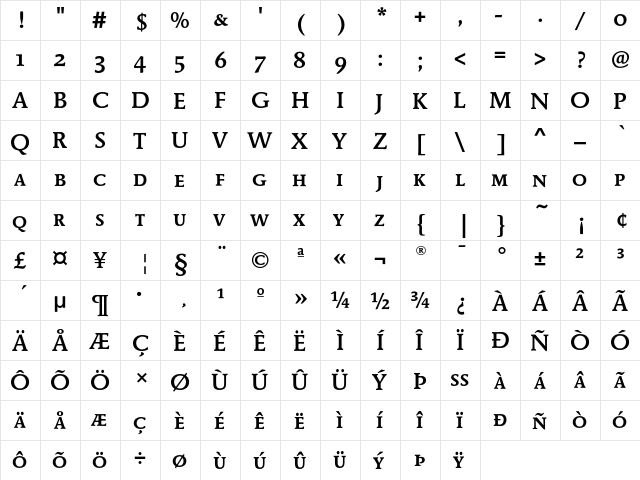
MendozaEF MediumSC Font Preview
MendozaEF MediumSC
Design Context for MendozaEF Typeface
MendozaEF offers clean, dependable letterforms without strong stylistic allegiance, making it a practical choice for designers who need flexibility.
Pro Tip: Use MendozaEF in both headline and body roles to test its range before committing to a single application.